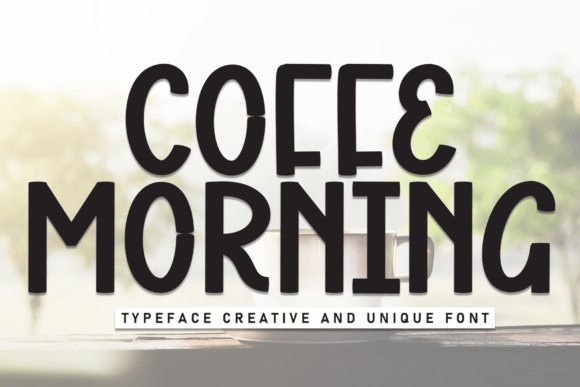
Start Your Day with a Cup of Creativity
As you sip your morning coffee, do you ever feel a spark of inspiration strike? Maybe it’s the aroma, maybe it’s the quiet morning hours, but whatever it is, it’s the perfect time to get creative. For designers, it’s about finding that perfect font that captures the essence of the moment – and that’s where the Coffe Morning Font comes in.
With its bold strokes and clean structure, this unique typeface is a breath of fresh air in the world of typography. It’s designed to bring a playful charm to your designs, whether you’re working on a branding project, crafting a café menu, or writing for a lifestyle blog. The Coffe Morning Font is more than just a font – it’s a way to infuse your work with a boost of morning energy and a dash of creativity.
Coffee Morning Font Key Features
- Unique Characteristics: The font features a unique blend of modern and vintage elements, with a warm and inviting tone that is perfect for coffee shop and café branding.
- Font Style: The font is available in regular and bold styles, making it versatile for use in a variety of contexts, from menu boards to advertising signage.
Coffe Morning Font Review
I’ve had the chance to play around with the Coffe Morning Font, and here’s my honest take on it.
- The font’s rustic, casual vibe is perfect for coffee shops, cafes, or any brand that wants to convey a cozy atmosphere.
- The font is highly legible, even at smaller font sizes, making it suitable for menus, signage, or other applications where text needs to be easily readable.
- The font’s character set is comprehensive, covering a wide range of languages and symbols.
- The font may be too casual for more formal or professional applications, where a more traditional or serif font might be more suitable.
- The font’s design may not be suitable for digital displays, as the text may not render well at small sizes or in low-resolution environments.
- The font’s character set may not include some special characters or accents, which could be a limitation for certain languages or applications.
The Coffe Morning Font is a solid choice for brands that want to convey a cozy, casual atmosphere. While it may have some limitations, it’s a well-designed font that’s suitable for a wide range of applications. If you’re looking for a font that’s perfect for your coffee shop or cafe, this might be a great choice. However, if you’re looking for a more formal or professional font, you may want to consider other options.
The Coffee Morning Font is commonly used in:
1. Coffee shop branding and marketing materials.
2. Food and beverage packaging and labeling.
3. Blogging and social media posts related to food and coffee culture.